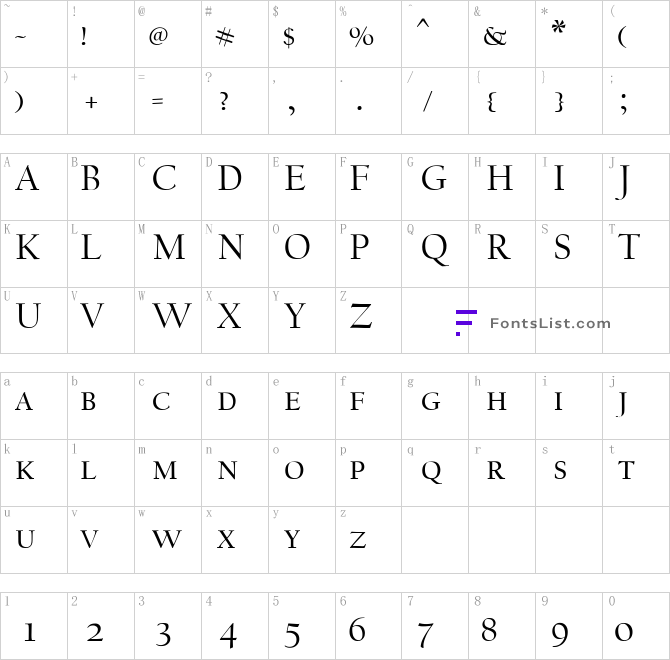
- Font Name:CalifornianMiddle
CalifornianMiddle-RomanExpert.ttf is a very beautiful artistic font, CalifornianMiddle-RomanExpert.ttf is widely used in the design and printing of various books and pictures,CalifornianMiddle-RomanExpert.ttf has a strong visual impact,CalifornianMiddle-RomanExpert.ttf is a commonly used font in newspapers, magazines and books, and is used in posters, e-commerce Poster design, store design, logo design, font design and other fields.CalifornianMiddle-RomanExpert.